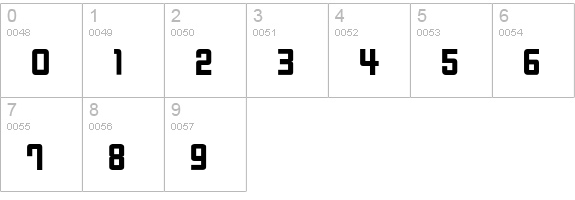
Kraftwerk Font Details
The Kraftwerk font is a sleek and modern typeface that exudes a sense of innovation and sophistication. Its clean lines and geometric shapes give it a futuristic appearance, making it perfect for a variety of design projects. This versatile font is ideal for branding, advertising, and digital applications. With its bold and distinctive style, Kraftwerk is sure to make a statement and captivate the attention of your audience. Best of all, Kraftwerk font is available for free download at FontsMarket.com. This means you can easily access this unique and eye-catching typeface to elevate your designs without any cost. Don't miss out on the opportunity to enhance your projects with the bold and dynamic Kraftwerk font - download it for free today!